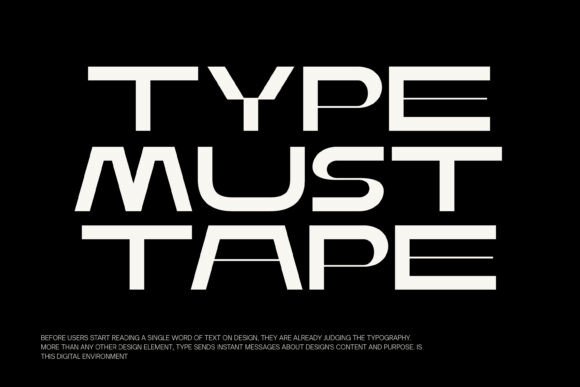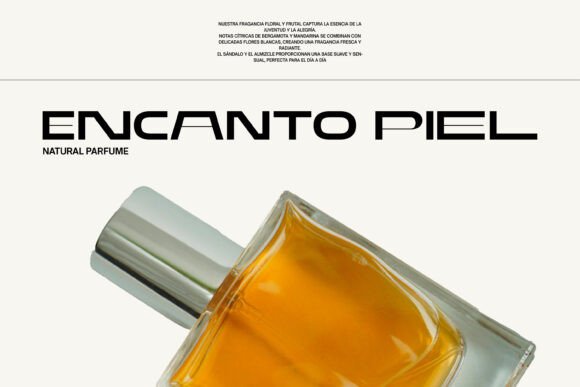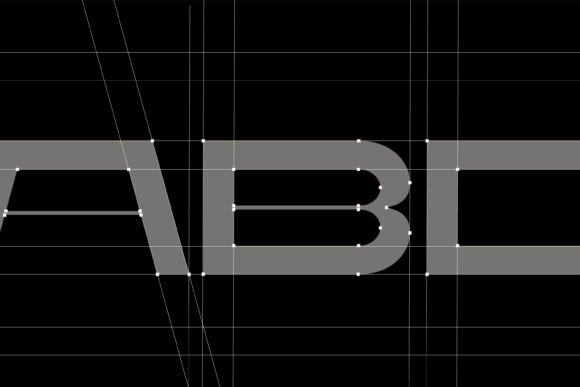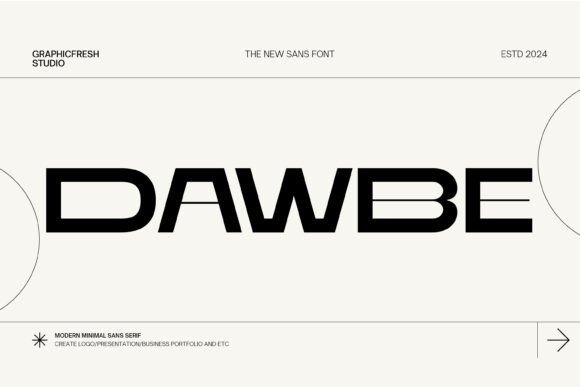
Introduction to Dawbe Font
Dawbe is a modern and minimalistic sans-serif typeface designed to convey a sense of boldness, clarity, and sophistication.
With its clean, geometric lines and sleek letterforms, it embodies contemporary design principles that make it suitable for a wide range of applications Whether used in creating logos, presentations, business portfolios, or other branding materials, “Dawbe” delivers a professional and stylish aesthetic that aligns perfectly with modern trends.
Why Choose Dawbe Font?
Dawbe Font offers exceptional quality and versatility, making it a valuable addition to your design toolkit. Whether you’re creating for personal projects or commercial use, Dawbe Font delivers professional results.